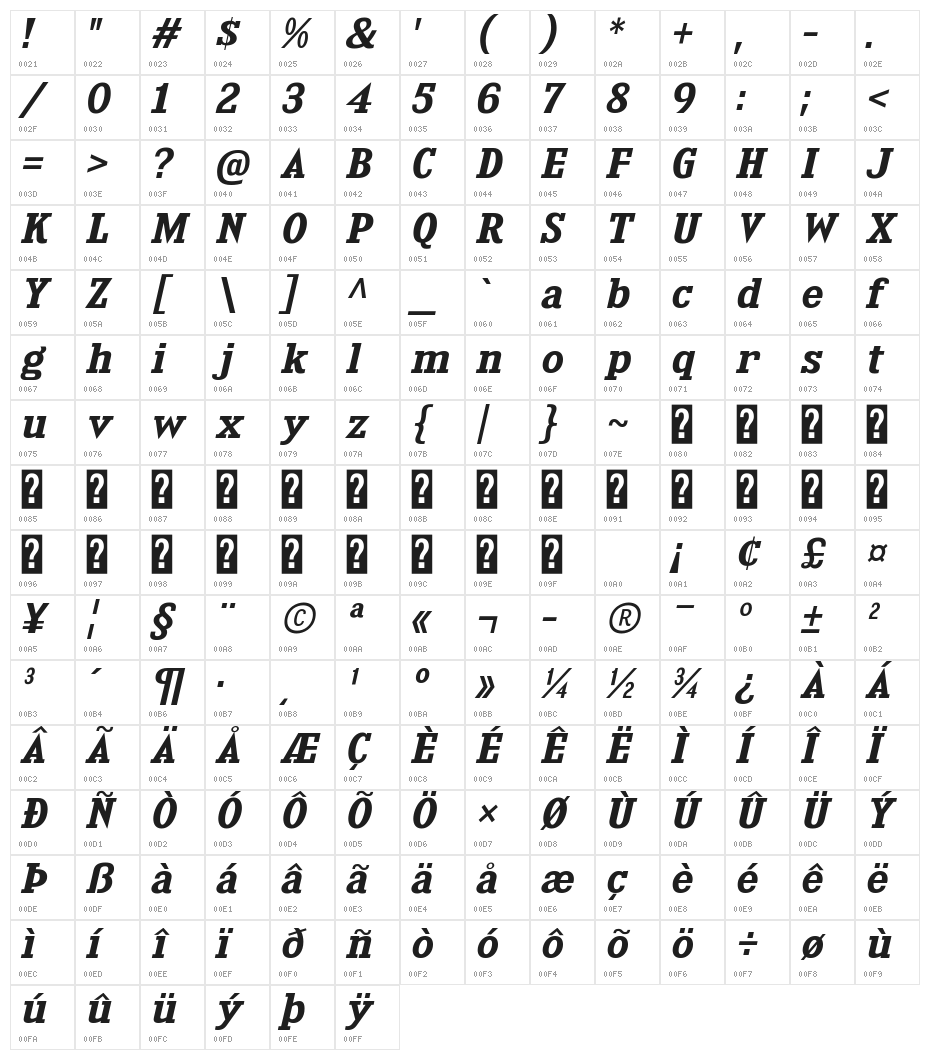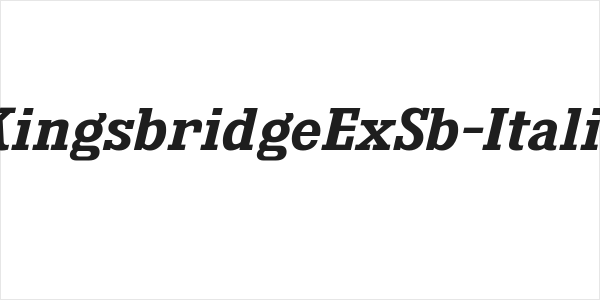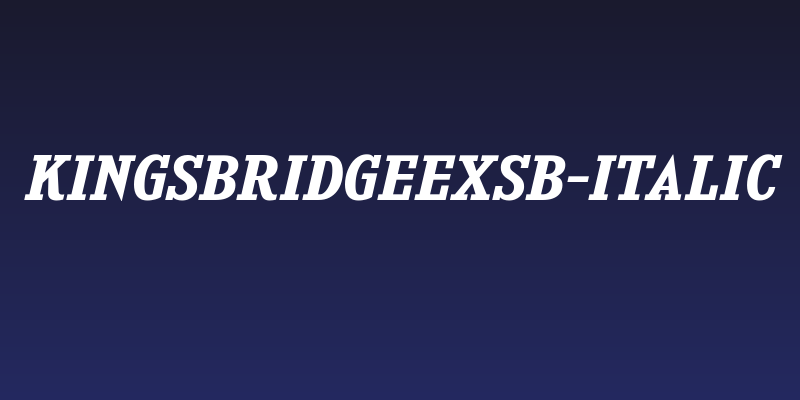
KingsbridgeExSb-Italic Font
KingsbridgeExSb-Italic Description
This font exhibits a bold and dynamic style with a pronounced italic slant, giving it a sense of movement and energy. The characters are well-defined with strong serifs, adding a touch of elegance and tradition. The uppercase letters stand tall and assertive, while the lowercase letters maintain a consistent flow, enhancing readability. The numerals are robust and clear, making them suitable for various applications. Special characters are designed with the same attention to detail, ensuring uniformity across the font. The overall impression is one of strength and sophistication, making it ideal for impactful headlines and branding.
| Proposed Projects | Ideal for branding, editorial design, book covers, and advertising where a strong, elegant presence is required. |